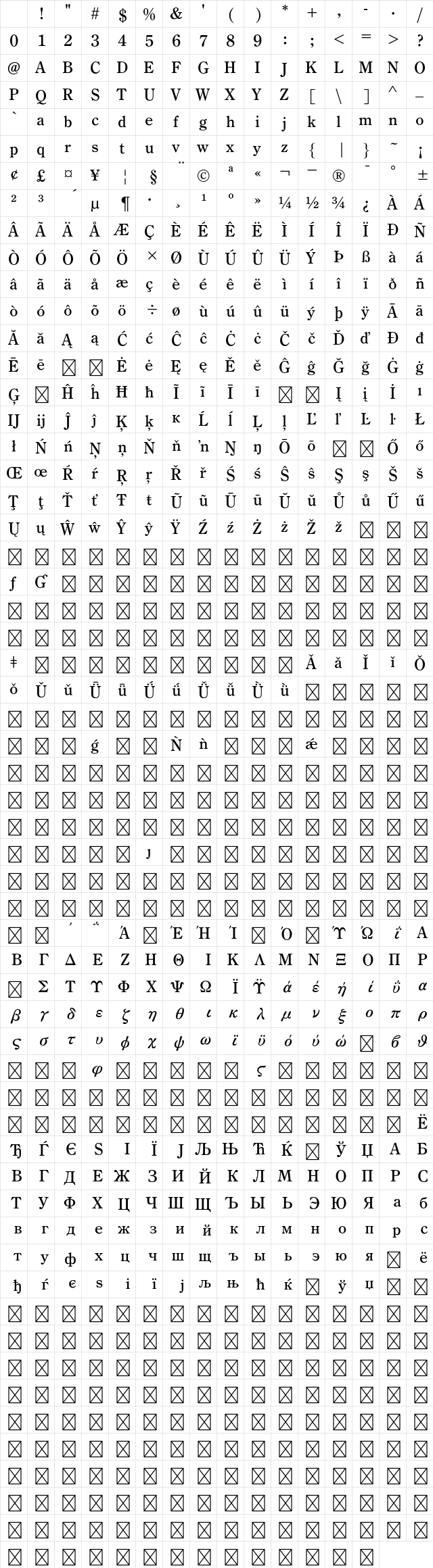
A P-OTF Shuei Mincho Pr6 B
Style: B
Designer: Dai Nippon Printing Co., Ltd.
Design Context for A P-OTF Shuei Mincho Pr6
A P-OTF Shuei Mincho Pr6 is a composed and adaptable typeface that performs quietly and consistently across a wide range of design contexts.